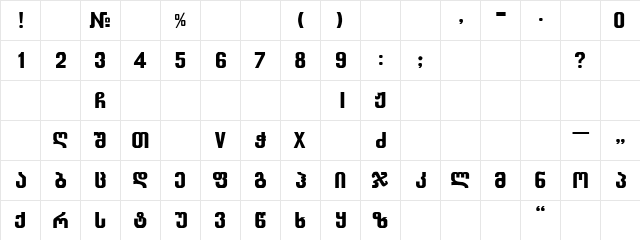
GEO-BalavMtavr Regular Font Preview
GEO-BalavMtavr Regular
GEO-BalavMtavr Regular Font Details
Design Context for GEO-BalavMtavr Typeface
GEO-BalavMtavr is a composed and adaptable typeface that performs quietly and consistently across a wide range of design contexts.